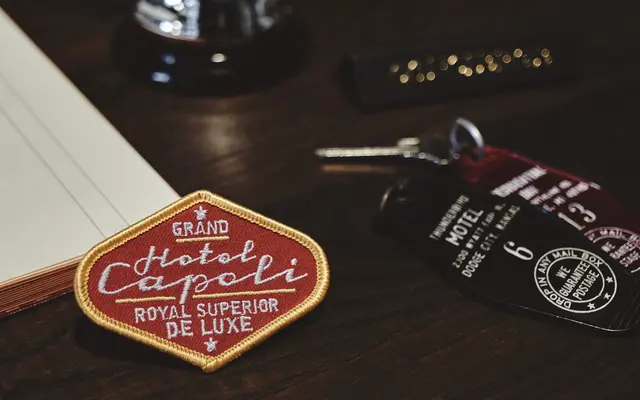
CA Capoli
A two-style vintage script drawn from a 1950s Italian ceramic ashtray logo, intended for illustrative titles and logotypes.
Designed by Thomas Schostok after discovering the word 'Nido' inscribed on a ceramic ashtray in an Italian bar, CA Capoli reconstructs what a full typeface from that fragment might have looked like. It comes in Regular and Stroke variants, covering Western and Central European character sets, with stylistic alternates and sets offering additional letter choices. The family has a warm, mid-century Italian character that suits branding, packaging and display lettering.
The foundry classifies it as Script; it is a display script with a hand-lettered, vintage Italian quality, drawn from a 1950s ceramic logo inscription rather than formal calligraphic tradition.